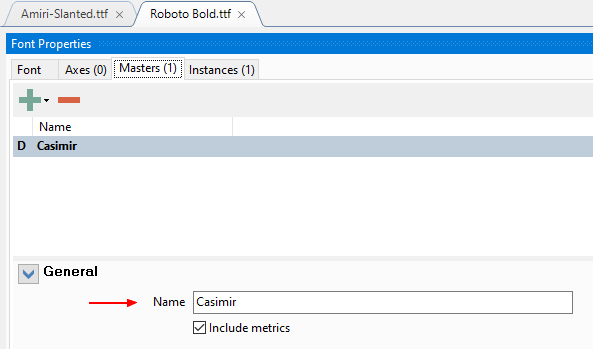
- An italic font is a specially created font and apart from the rightward slant, some glyphs have a different design to their Roman equivalents, for example a and g.
- An oblique font is a Roman font slanted to the right.
- A slanted font could be slanted to the left (but Amiri slanted is slanted to the right so a priori either italic or oblique, but many characters are identical to the regular form!)
Finally, how can one really be sure that a font named italic or oblique or slanted is so?
Look at it ! If it looks slanted or italic then it probably is.
See Font Properties, Masters, General to see whether the font is Regular, Bold, Italic, or Bold Italic.
When a user selects the italic attribute in a word-processor, the italic version of the font is used.
Italic fonts usually have a negative italic angle, but they do not have to actually be slanted.
Script fonts may be Regular type style, but still slanted, e.g. Hari Regular.
Properties Master displays what has been entered into the font by the author.
Here, the master is (mischievously) called Casimir for a Google Roboto Regular font registered as… Roboto Bold.
How can we be sure that the Italic, Slanted, Oblique information the author has entered is correct?